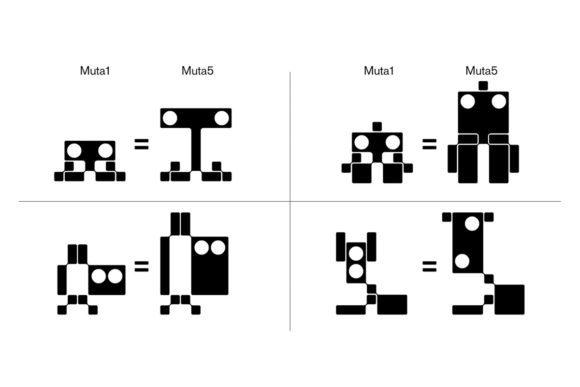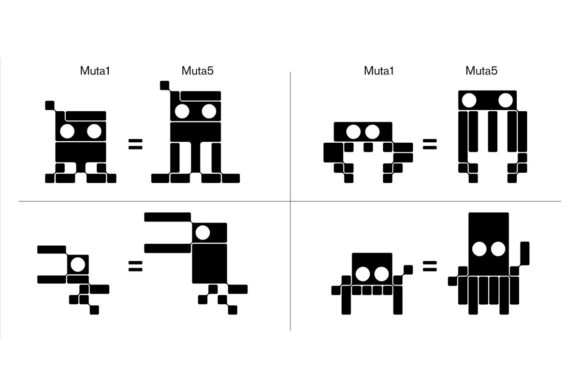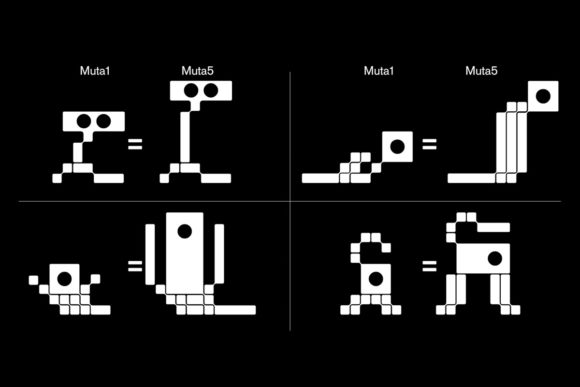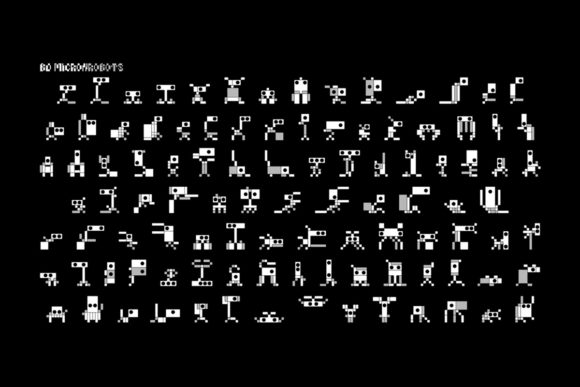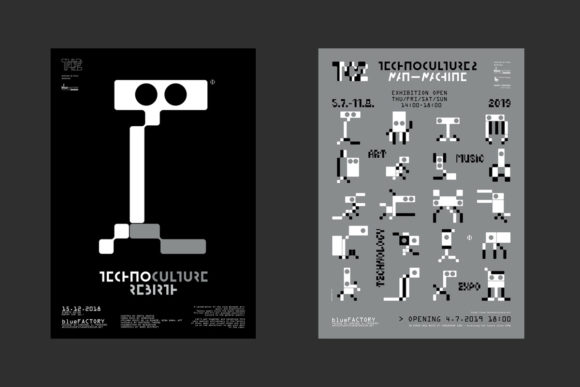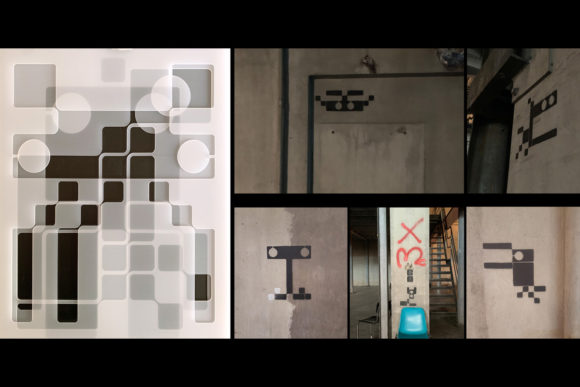
BD MicronRobots Font
About BD MicronRobots Font
BD MicronRobots sounds like a fantastic dingbats font that can add a touch of uniqueness and creativity to your DIY projects. With its collection of unique and amazing robot-themed dingbats, you have the opportunity to bring your projects to life in a fun and playful way. Here are some ideas on how you can use BD MicronRobots in your DIY projects:
1. Card Making: Create handmade greeting cards with a robot theme using the dingbats from BD MicronRobots. Use the robot icons as focal points on your cards or as decorative elements. You can also combine them with other design elements like text, patterns, or embellishments to create visually appealing and personalized cards.
2. Scrapbooking: Incorporate the robot dingbats into your scrapbook layouts to enhance the theme or story of your pages. Use them to highlight photos, create borders, or add decorative elements. Consider using different sizes and orientations of the robot dingbats to add variety and interest to your scrapbook pages.
3. DIY Home Decor: Use the BD MicronRobots dingbats to create unique and personalized home decor items. Paint or transfer the robot designs onto canvas, wood, or other surfaces to create wall art or signs. You can also apply the robot icons to decorative objects like mugs, frames, or storage boxes to give them a robotic theme.
4. Clothing and Accessories: Transfer or embroider the robot dingbats onto fabric to create custom-designed clothing and accessories. Add them to t-shirts, tote bags, hats, or patches to showcase your love for robots. Experiment with different placement and sizes of the robot icons to create eye-catching designs.
5. Educational Projects: Utilize the BD MicronRobots dingbats for educational purposes. Create flashcards, worksheets, or visual aids for teaching concepts related to robotics, technology, or science. The unique robot designs can engage students and make learning more enjoyable.
6. Digital Designs: Incorporate the robot dingbats into your digital designs, such as social media graphics, website banners, or digital art. Use them as icons, decorative elements, or part of a larger composition. Combine the robot dingbats with other graphic elements or typography to create visually appealing and cohesive designs.
Remember to have fun and let your creativity guide you when using BD MicronRobots in your DIY projects. The unique and amazing robot dingbats can add a playful and whimsical touch to any project, making them stand out and capture attention. Enjoy bringing your DIY projects to life with the help of BD MicronRobots!